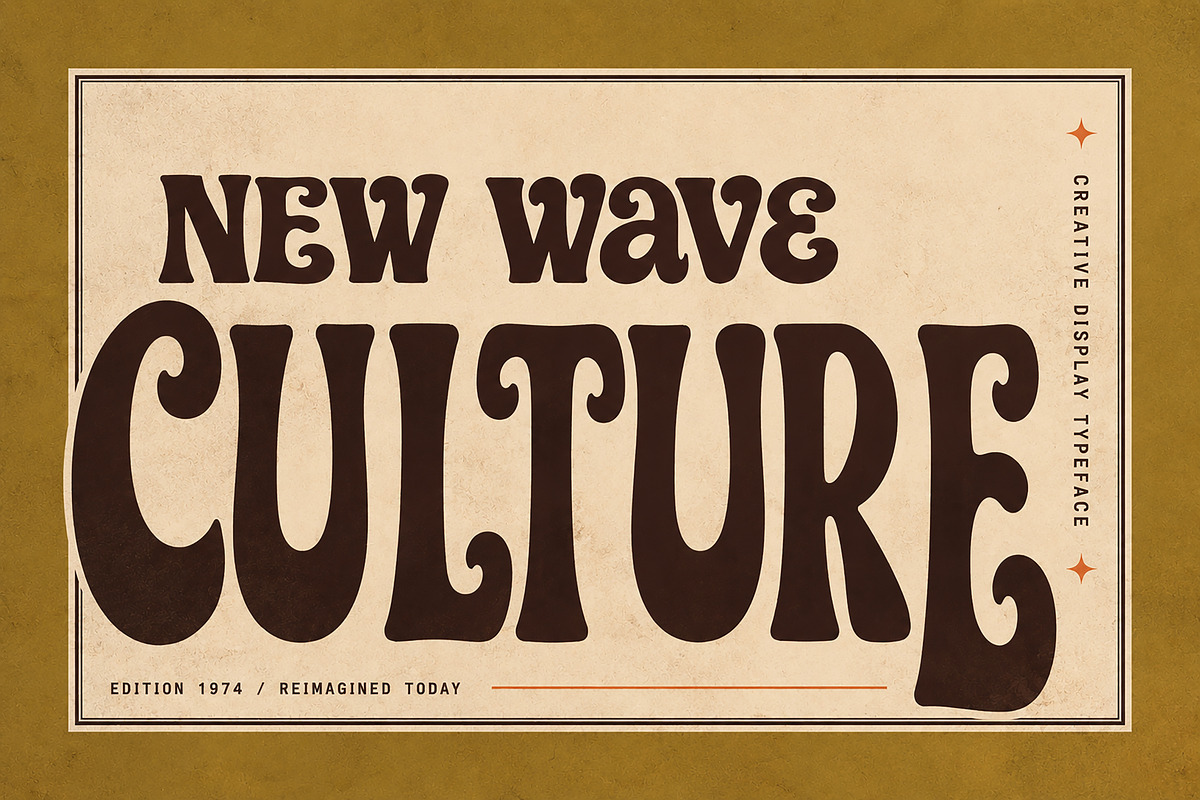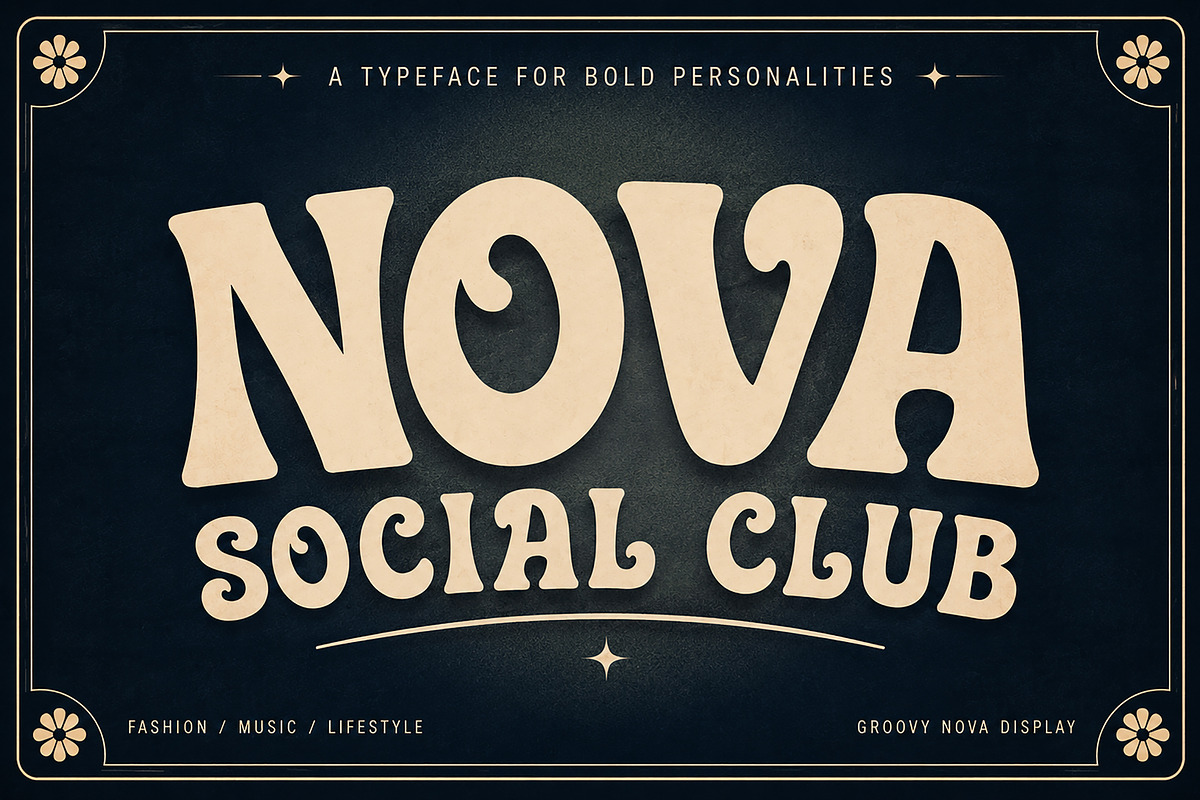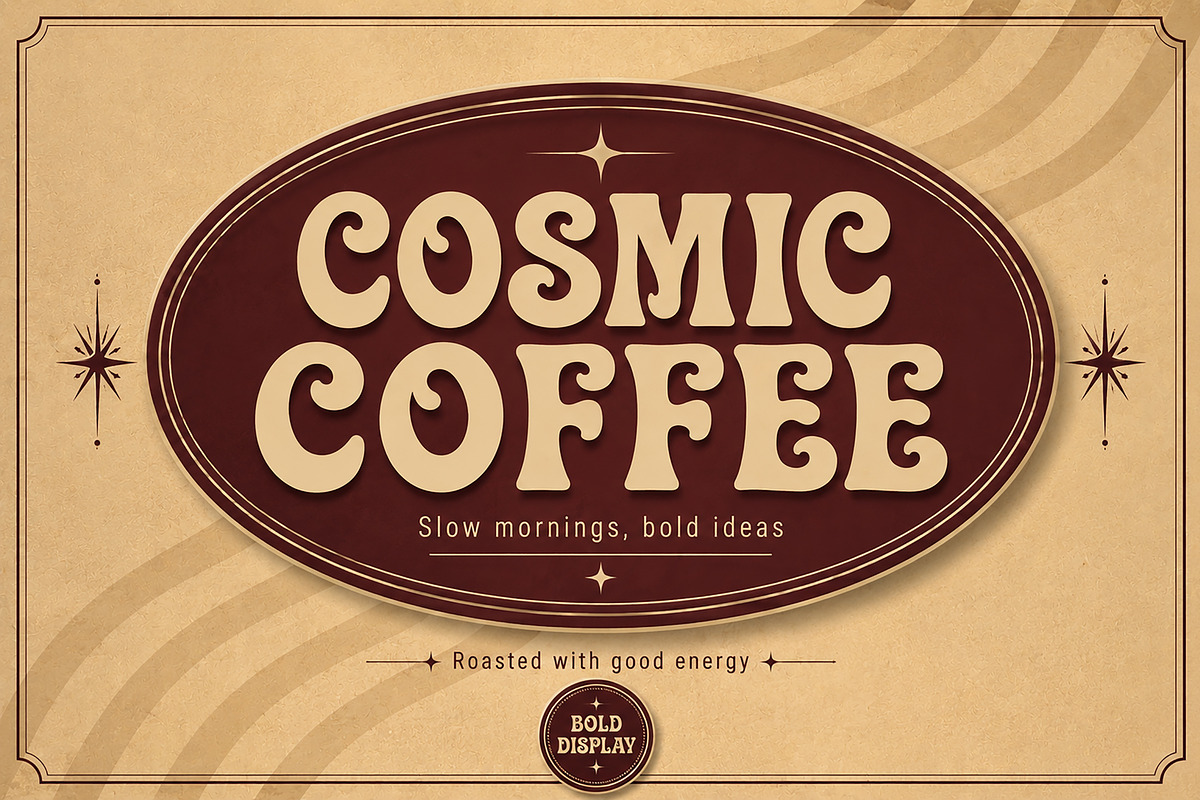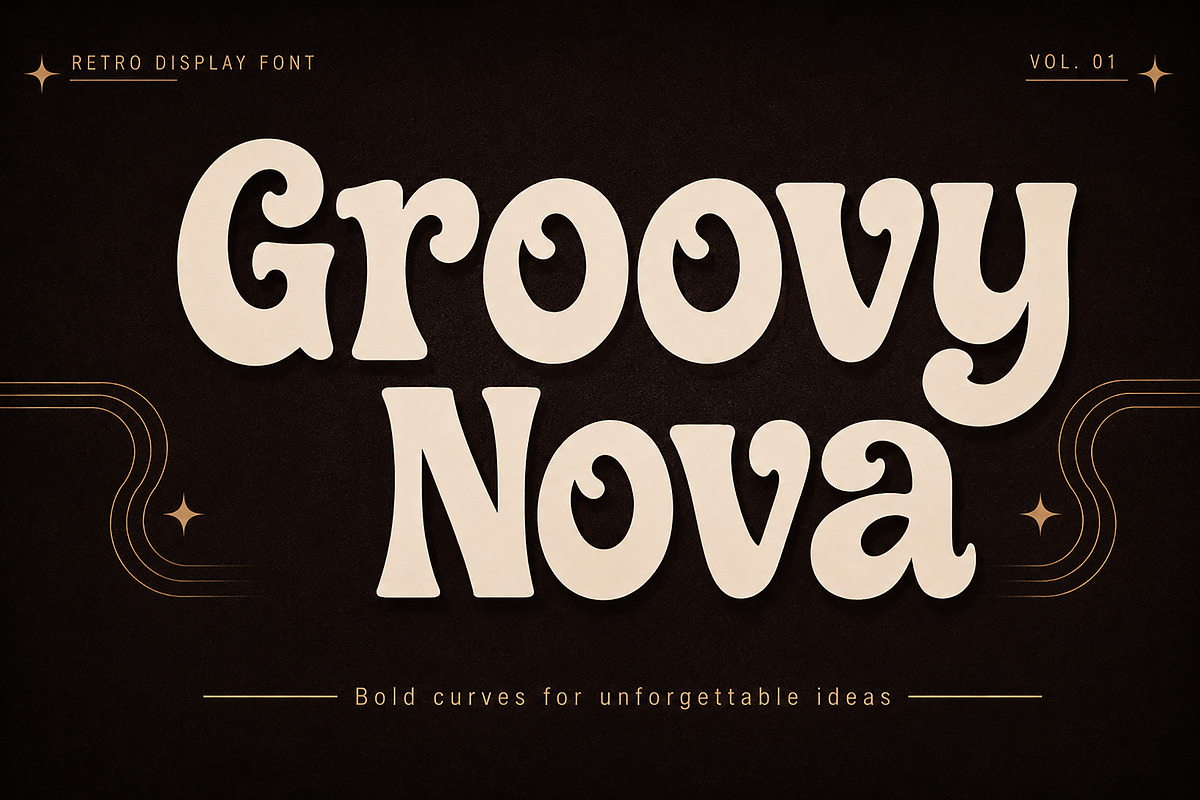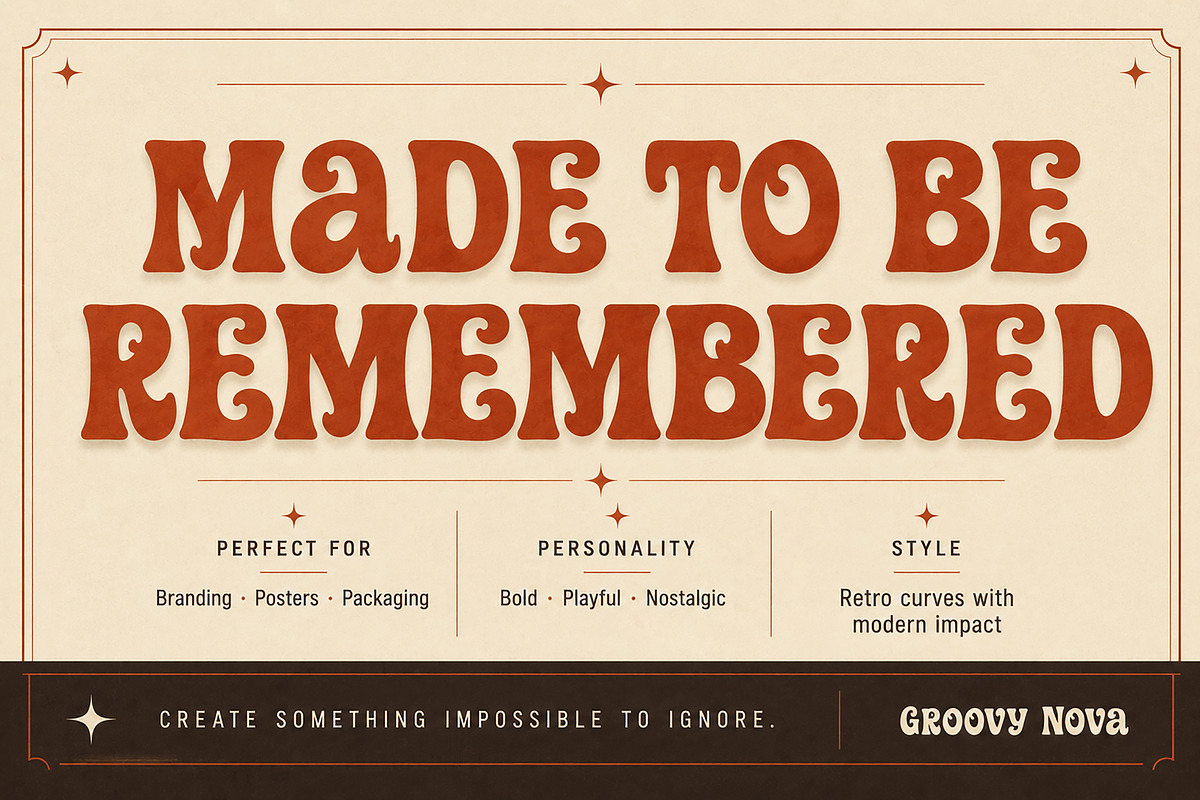
Groovy Nova
A Bold Retro Display Font with Modern Personality
Groovy Nova is a chunky, handcrafted display font inspired by the expressive typography of the 70s, reimagined for today's creative projects. With its soft curves, playful shapes, and bold presence, this typeface instantly brings warmth, personality, and nostalgic charm to any design.
Whether you're creating eye-catching branding, vintage-inspired packaging, stylish posters, or social media graphics, Groovy Nova is designed to make every headline stand out. Its unique retro character pairs beautifully with clean sans-serif fonts, making it perfect for both modern and nostalgic design aesthetics.
Perfect for designers, creatives, and brands looking to create memorable visuals with a bold vintage touch.
Branding & Identity
Product Labels
Posters
Magazine Covers
Editorial Design
T-Shirt Design
Stickers
Album Covers
Café & Restaurant Branding
Event Promotions
Advertising
Fashion Branding
Website Headers
YouTube Thumbnails
Creative Projects
Uppercase Letters
Lowercase Letters
Smooth Curves
Bold Display Style
Easy to Read
Perfect for Headlines
High-Quality Letter Spacing
Why You'll Love Groovy Nova
Authentic retro-inspired design
Bold and eye-catching appearance
Perfect for vintage and modern branding
Ideal for packaging, posters, and social media
Easy to combine with minimalist fonts
Clean, professional, and versatile display typeface